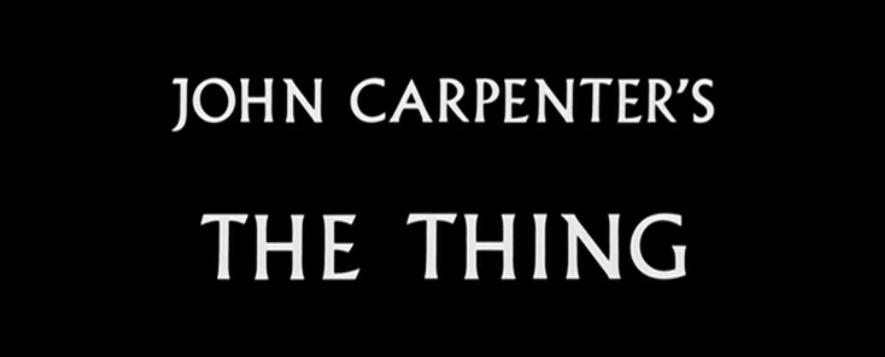
i've always liked Georgia
i'm aware it's super basic, but it strikes a good balance between legibility and looking good
runner-ups would have to be ones I don't know the names of but can post pictures of
Verdana will always be the one for me - wonderfully easy to read at any size, which is why I tend to embed it in any book I load to my e-reader, where I usually utilize the smallest font size.